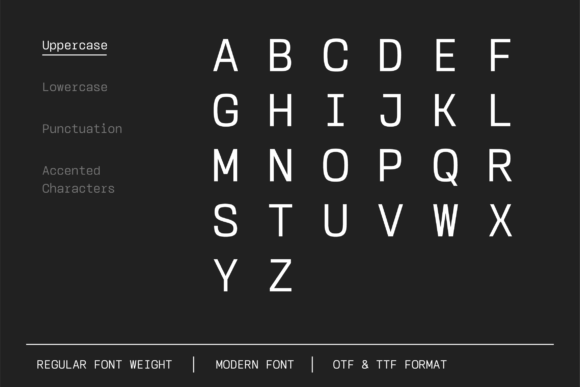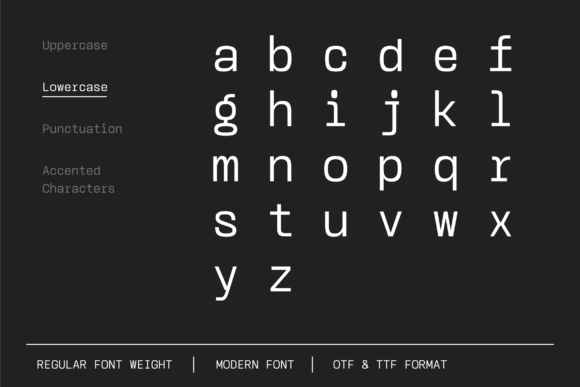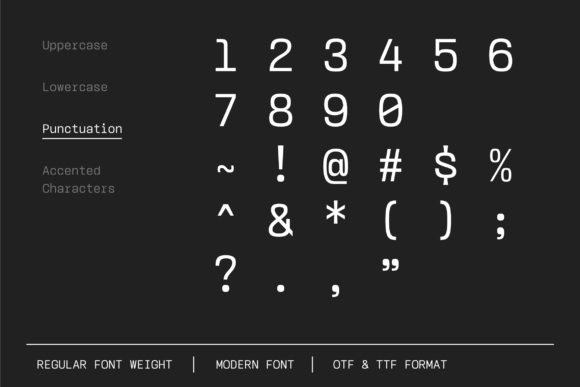
Introduction to Monos Font
A modern monospaced font with a futuristic theme, thinking about Interstellar or Gravity.
Monos is sleek and sophisticated, suitable for headings and paragraphs as well It’s perfect for movie titles, game titles, websites, mobile apps, posters, and more.